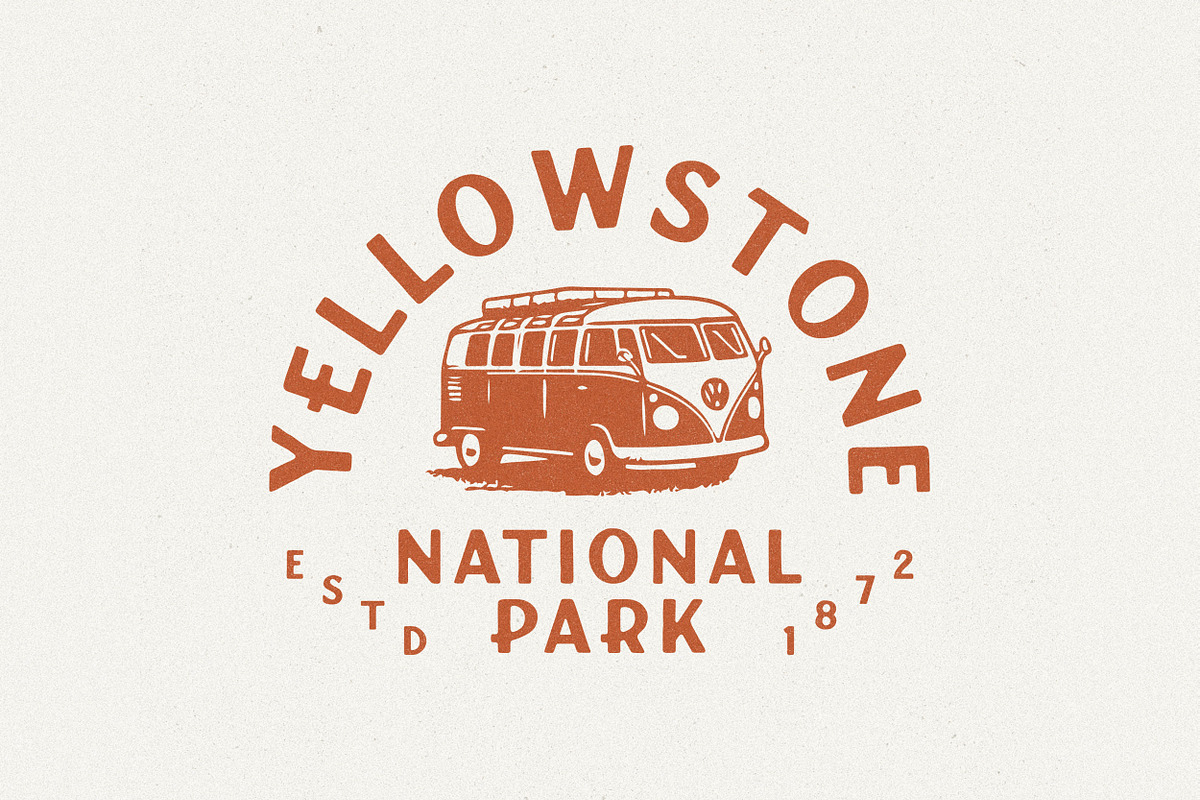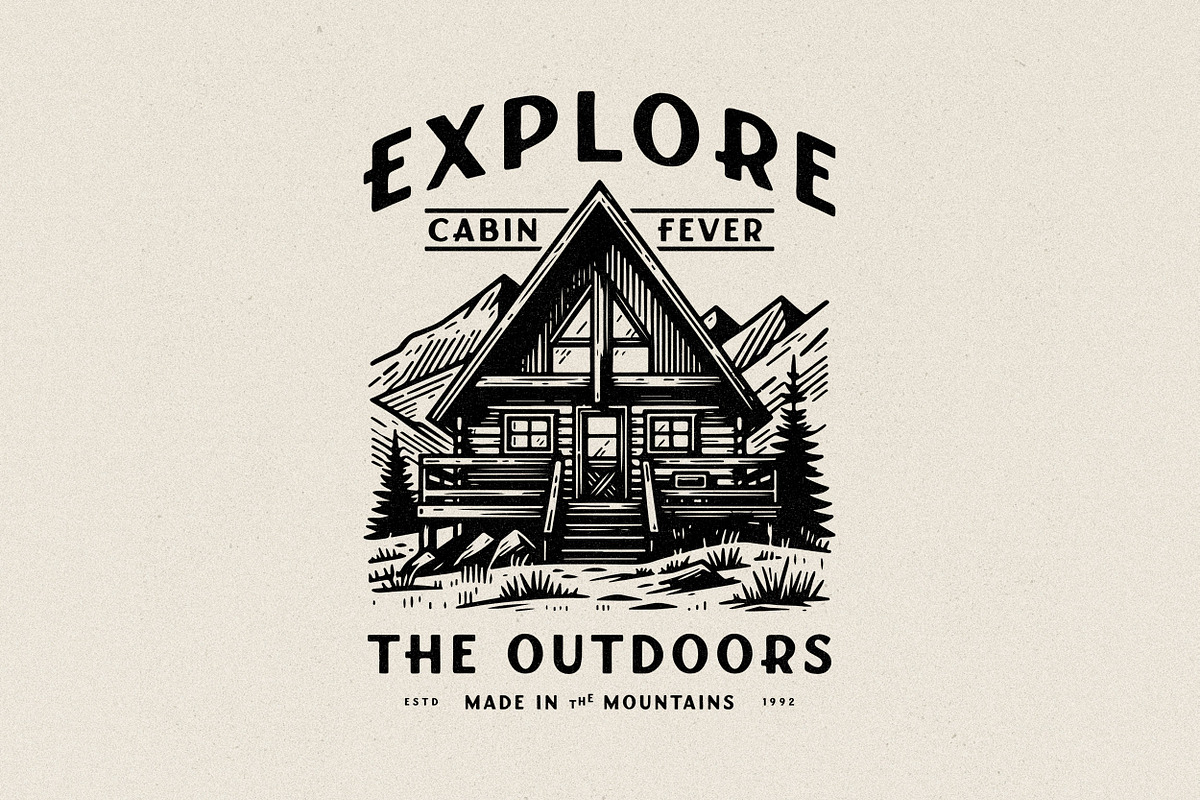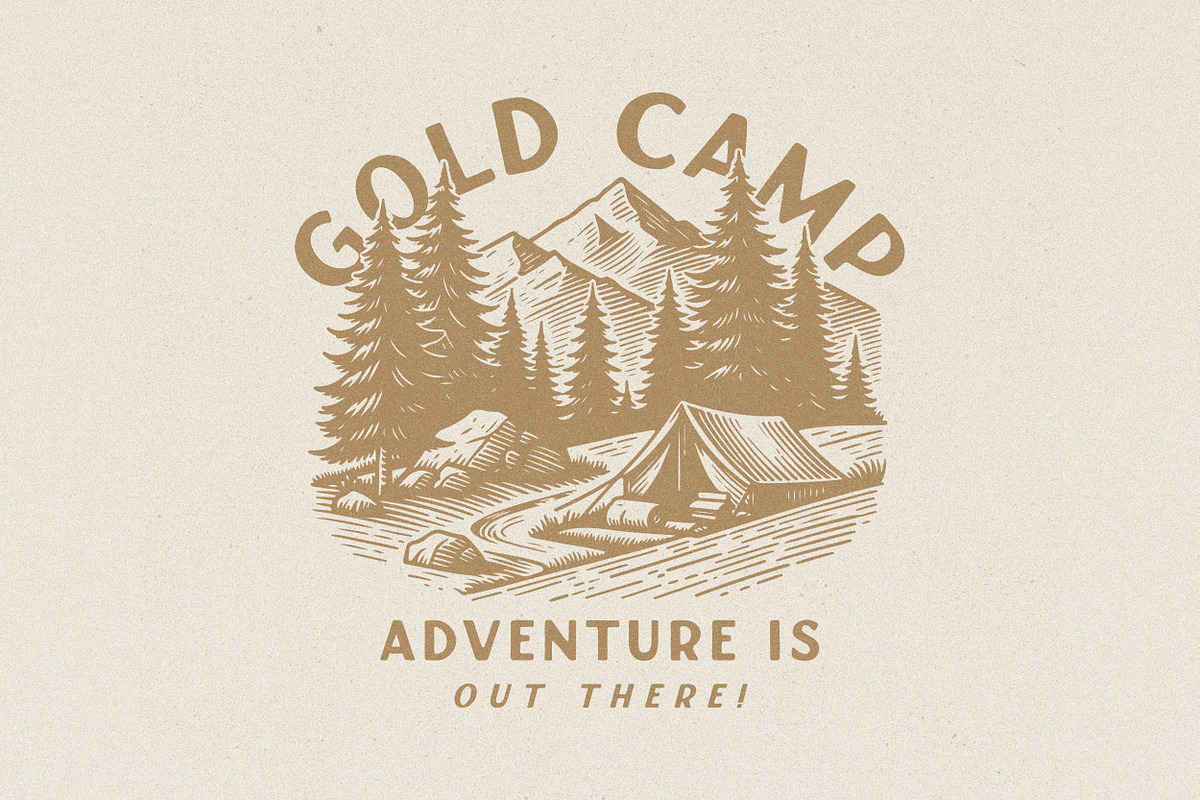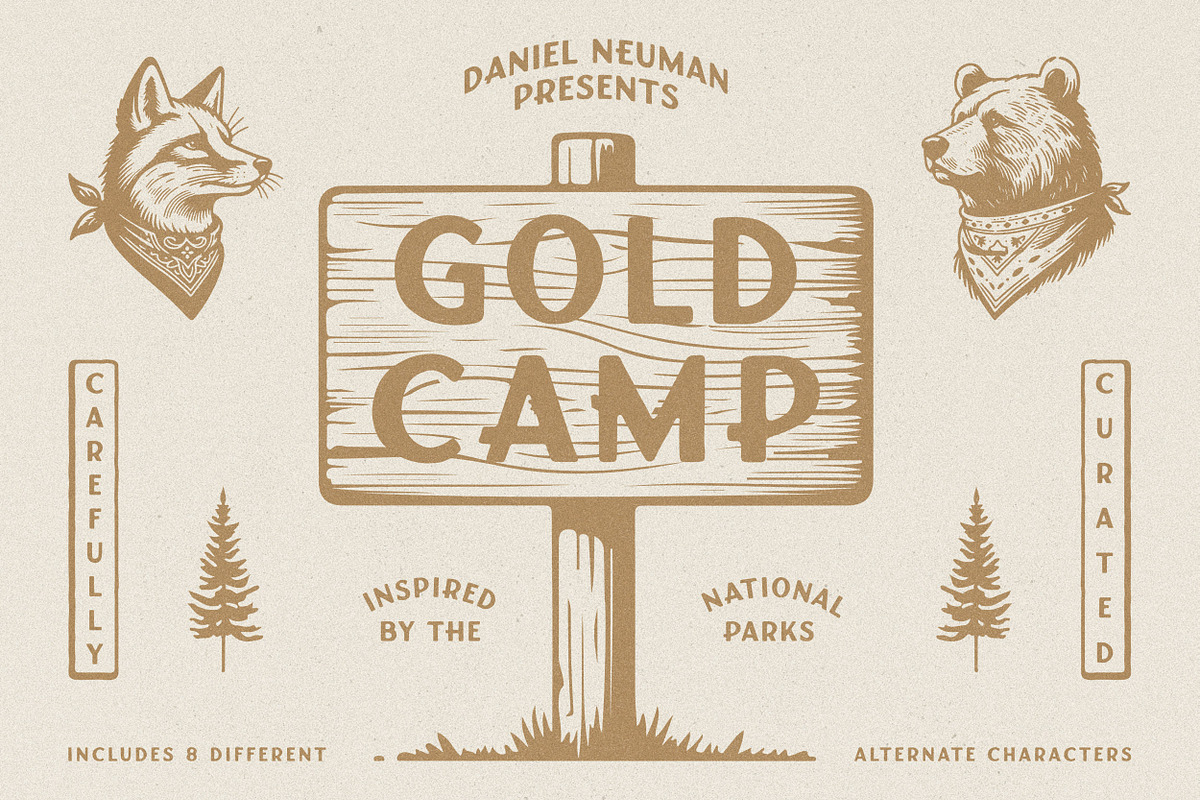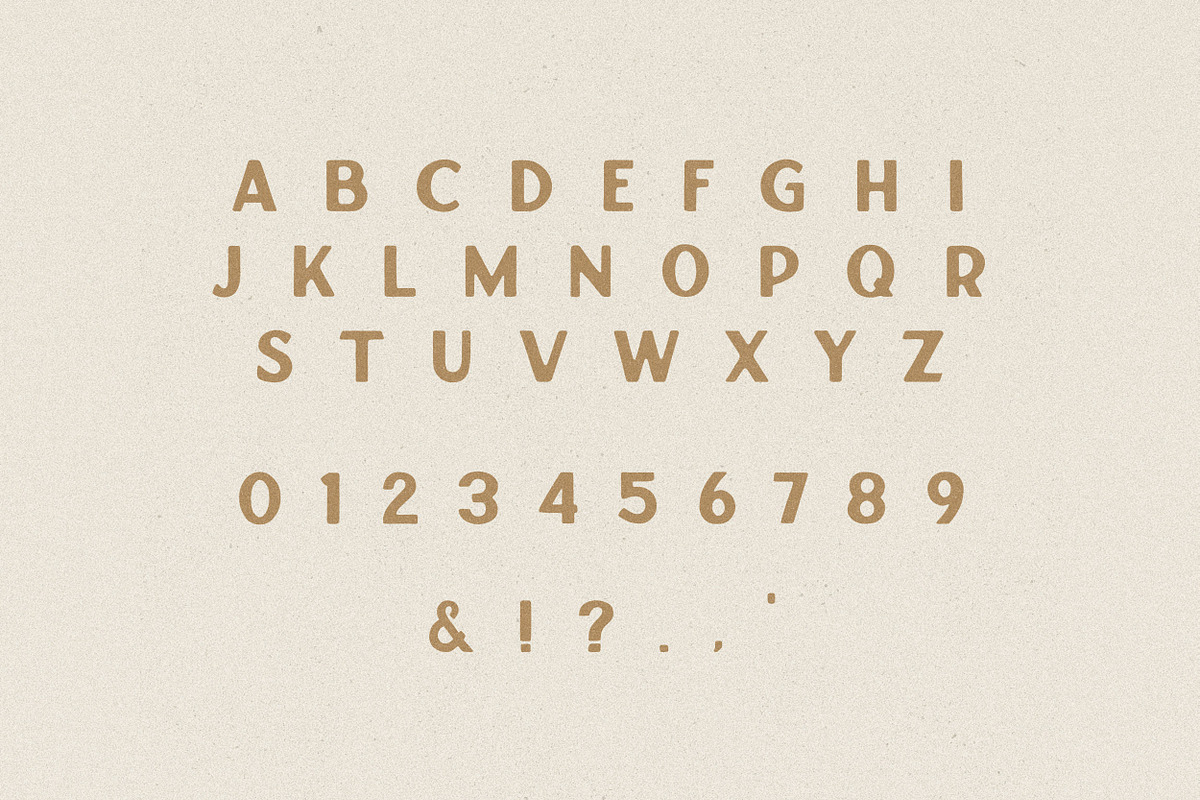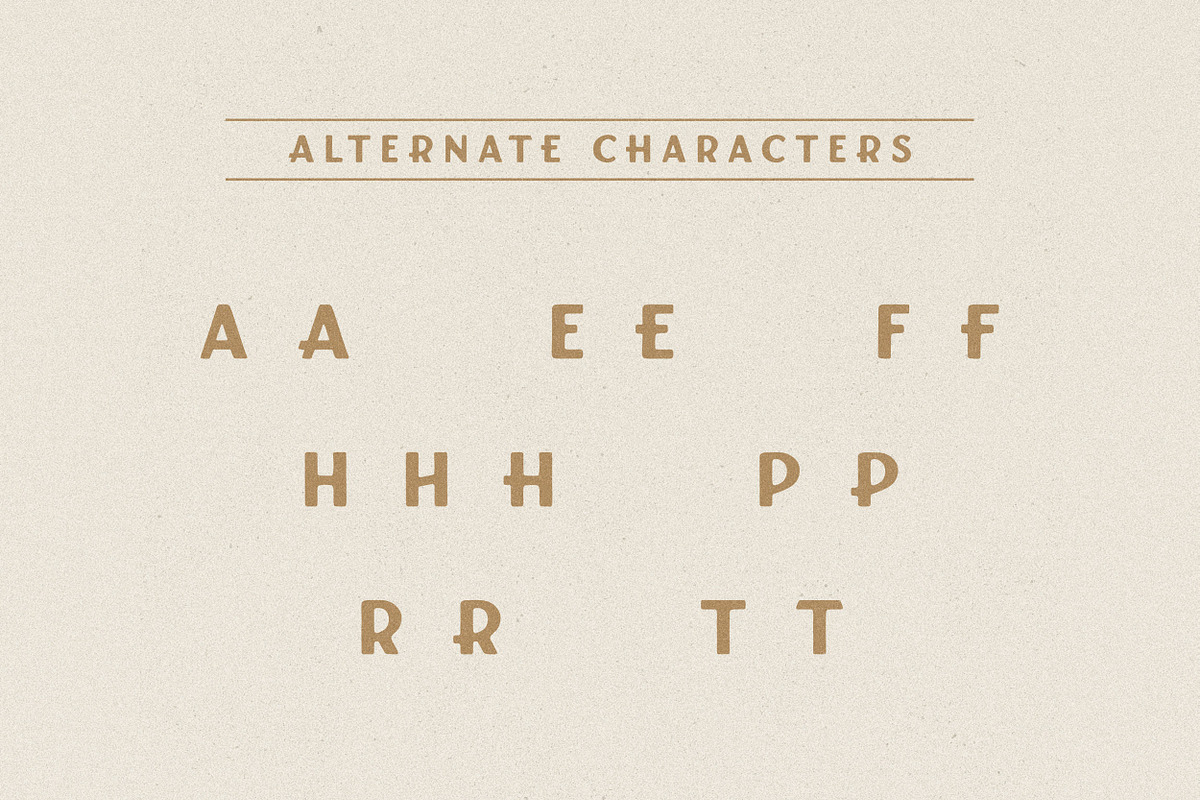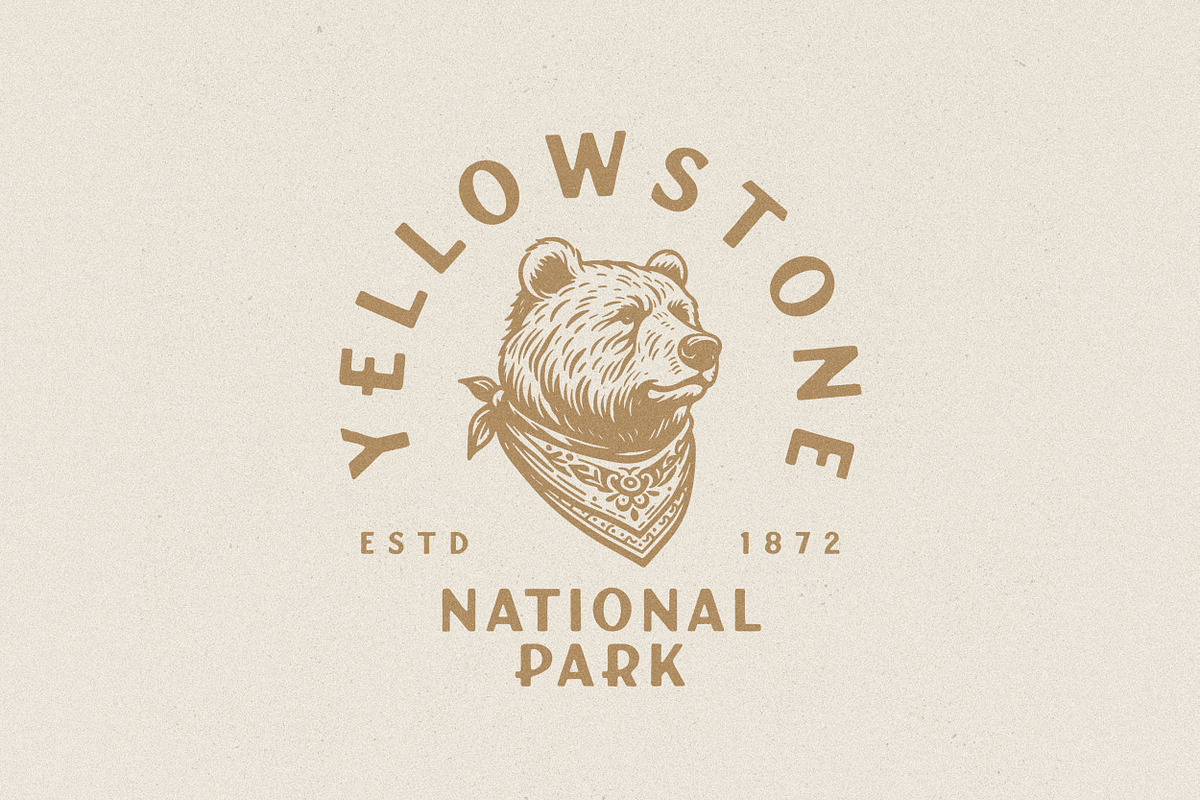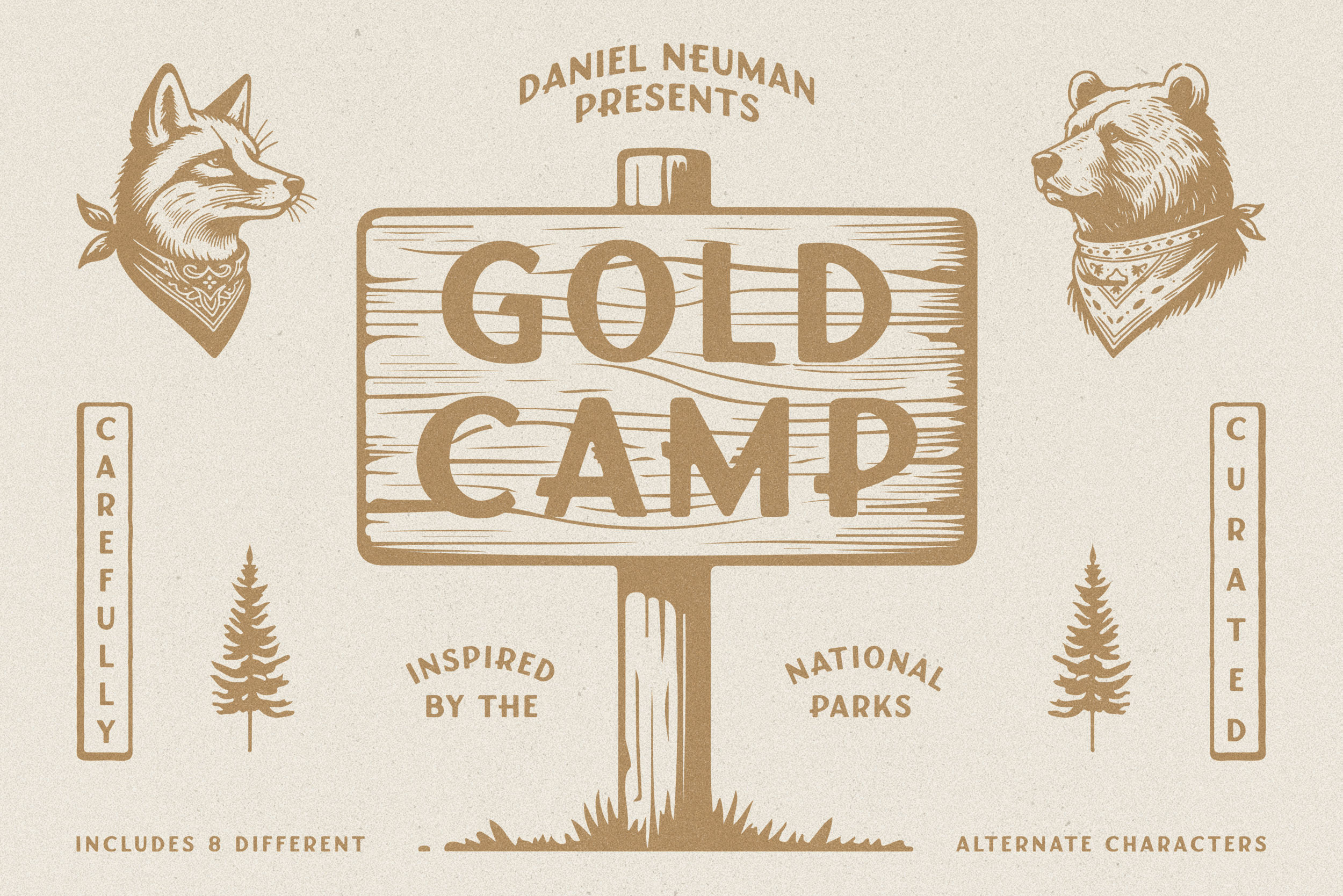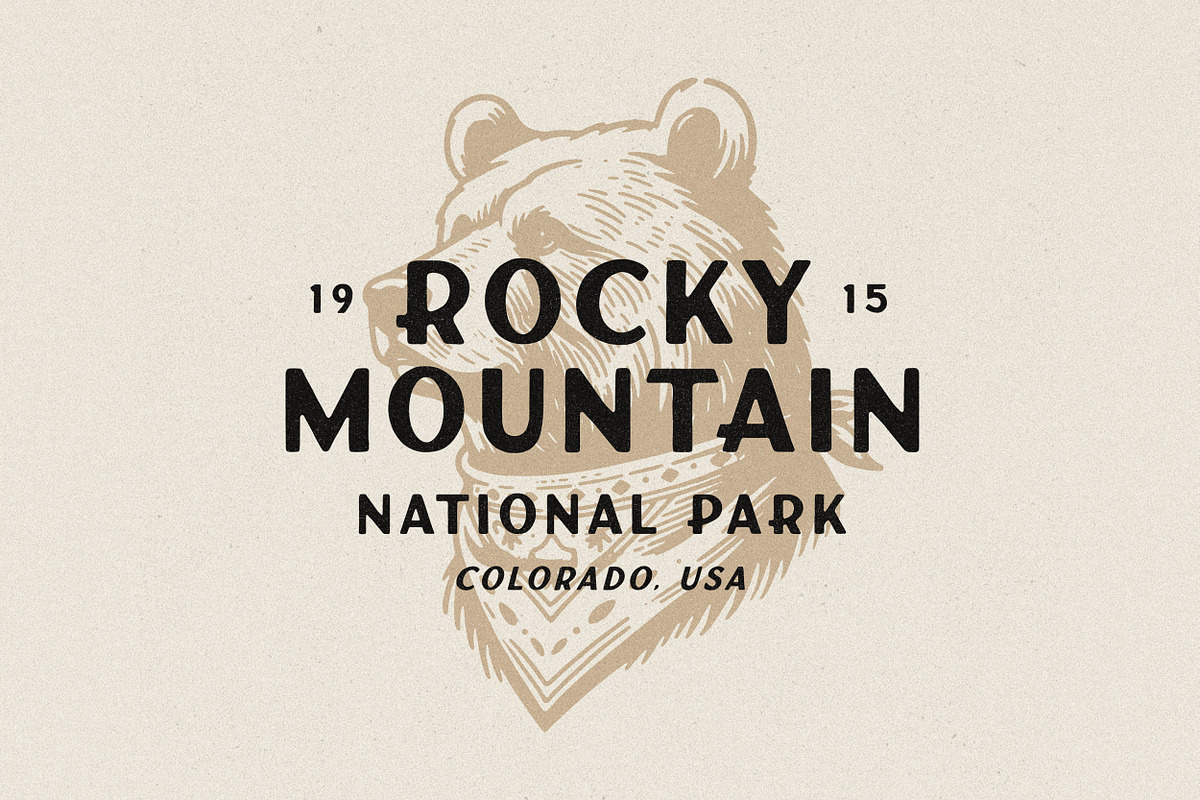
Gold Camp | Handmade Display Font
Inspired by the off-road adventures in the rocky mountains where I proposed to my wife, Gold Camp is a fearless sans-serif with a few alternate characters to give your project the bold look it deserves.
Contains single-case A-Z, numbers 0-9 and basic punctuation.